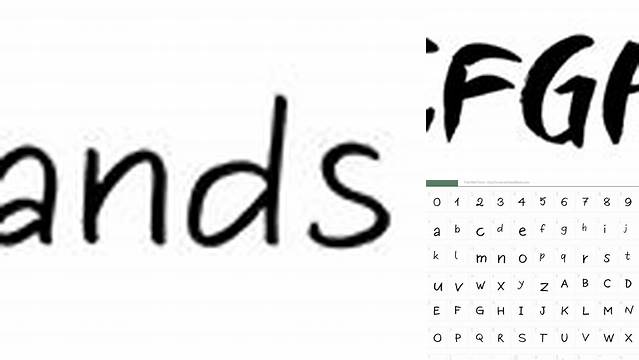
Six Hands Marker Font Free: Get Creative Designs
Hey everyone! Today, we're diving into the awesome world of fonts, specifically focusing on the Six Hands Marker Font Free. This font is like a secret weapon for anyone looking to add a touch of personality and a handcrafted feel to their projects. Whether you're a seasoned designer, a budding artist, or just someone who loves to get creative, the Six Hands Marker Font Free is a fantastic tool to have in your arsenal. We're going to explore everything you need to know, from where to find it, how to use it, and some cool ideas to get you inspired. So, buckle up, grab your favorite beverage, and let's get started!
Six Hands Marker Font Free: What Makes It Special?
Alright, guys, let's talk about what makes the Six Hands Marker Font Free stand out from the crowd. This font isn't your typical clean, sterile typeface. It's got character, it's got flair, and it's got a certain charm that's hard to resist. The Six Hands Marker Font Free is designed to mimic the look and feel of handwriting with a marker. Think bold strokes, slightly imperfect edges, and a generally playful vibe. This is super cool, especially if you're looking to give your work a more personal and authentic touch. It's perfect for projects where you want to convey a sense of fun, creativity, and approachability. Imagine using it for invitations, posters, social media graphics, or even your own personal blog. The possibilities are pretty much endless! The best part? It's free! This means you can download and use the Six Hands Marker Font Free for both personal and commercial projects without spending a dime. This is a huge win, especially for those of us who are on a budget. The font usually comes with a variety of weights and styles, so you can choose the perfect look for your project. Some versions might include different versions of each letter, adding to the handwritten feel. Overall, this free font is an amazing tool for designers of all levels, offering a unique look that is both stylish and accessible. So, if you're looking for a font that is both visually appealing and easy to use, you can't go wrong with the Six Hands Marker Font Free.
The Allure of Hand-Drawn Fonts
Guys, let's delve into why hand-drawn fonts, like the Six Hands Marker Font Free, are so darn appealing. In a world dominated by sleek, digital designs, there's something undeniably refreshing about the human touch. Hand-drawn fonts bring a sense of warmth, personality, and authenticity that's hard to replicate with standard typefaces. They're like a breath of fresh air, injecting a dose of creativity and uniqueness into any project. Think about it: when you see a hand-drawn font, you instantly get a feeling that it was made with care and attention. This makes the overall design feel more inviting and engaging. It's like a digital hug! Hand-drawn fonts, like the Six Hands Marker Font Free, can instantly elevate your work and help it stand out from the crowd. They're fantastic for creating a sense of playfulness, informality, and approachability. This is especially useful if you're targeting a younger audience or want to convey a sense of fun. Plus, they're incredibly versatile. You can use them in a wide range of projects, from logos and branding to social media posts and website headers. Hand-drawn fonts also evoke a sense of nostalgia. They remind us of a time when everything was made by hand, and there was a greater emphasis on craftsmanship. This can be a powerful way to connect with your audience on a more emotional level. Furthermore, hand-drawn fonts often come with a certain level of imperfection, which is part of their charm. These imperfections add to their unique character and make them feel more genuine. This can be a great way to humanize your brand and make it more relatable to your audience. In conclusion, the appeal of hand-drawn fonts lies in their ability to inject personality, authenticity, and creativity into your projects. The Six Hands Marker Font Free provides this kind of experience to your designs.